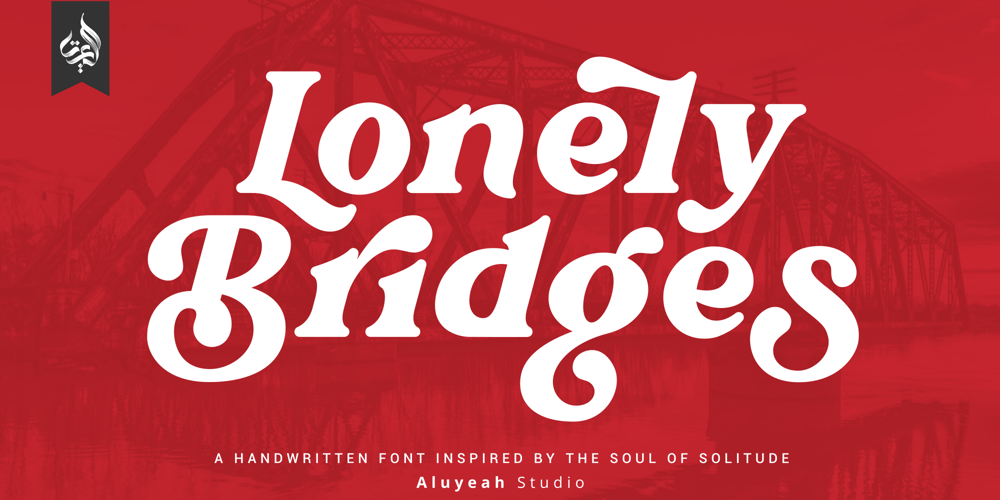
Al Lonely Bridges Font Family was designed by Linggar Sundoro and published by Aluyeah Studio. Al Lonely Bridges contains 1 styles and family package options. Hello Aluyeaholics!Lonely Bridges a stunning display font inspired by the soul of solitude. Lonely Bridges carries an italic style giving the impression of an unstable, rebellious, and indecisive soul. Make your design project more emotional to convey.Coming with 150+ stunning and super easy to use alternates and ligatures. To get results like the preview just type L.4onel.4y B.3r.idges.2